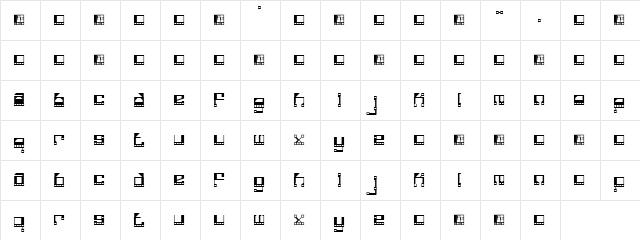
Funkotronic Regular
Design Context for Funkotronic Typeface
Funkotronic has an approachable, lighthearted character — its loose, expressive forms are well-suited to children's content, casual branding, and fun-first design.
Font Pairing: Pairs well with a rounded or humanist sans for body copy, maintaining the friendly tone without relying on Funkotronic to carry extended reading.
Pro Tip: Use Funkotronic at larger display sizes where its expressive character can land. Pair with a clean, simple sans for body copy to maintain readability.